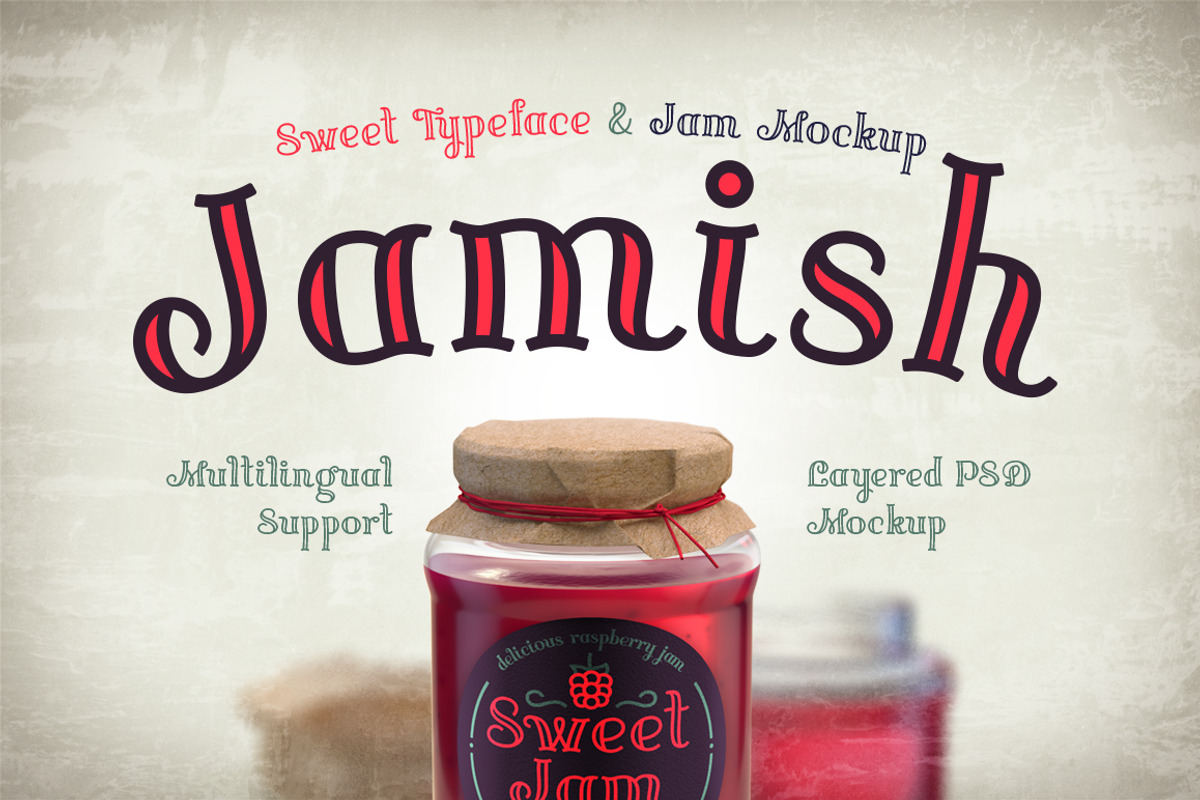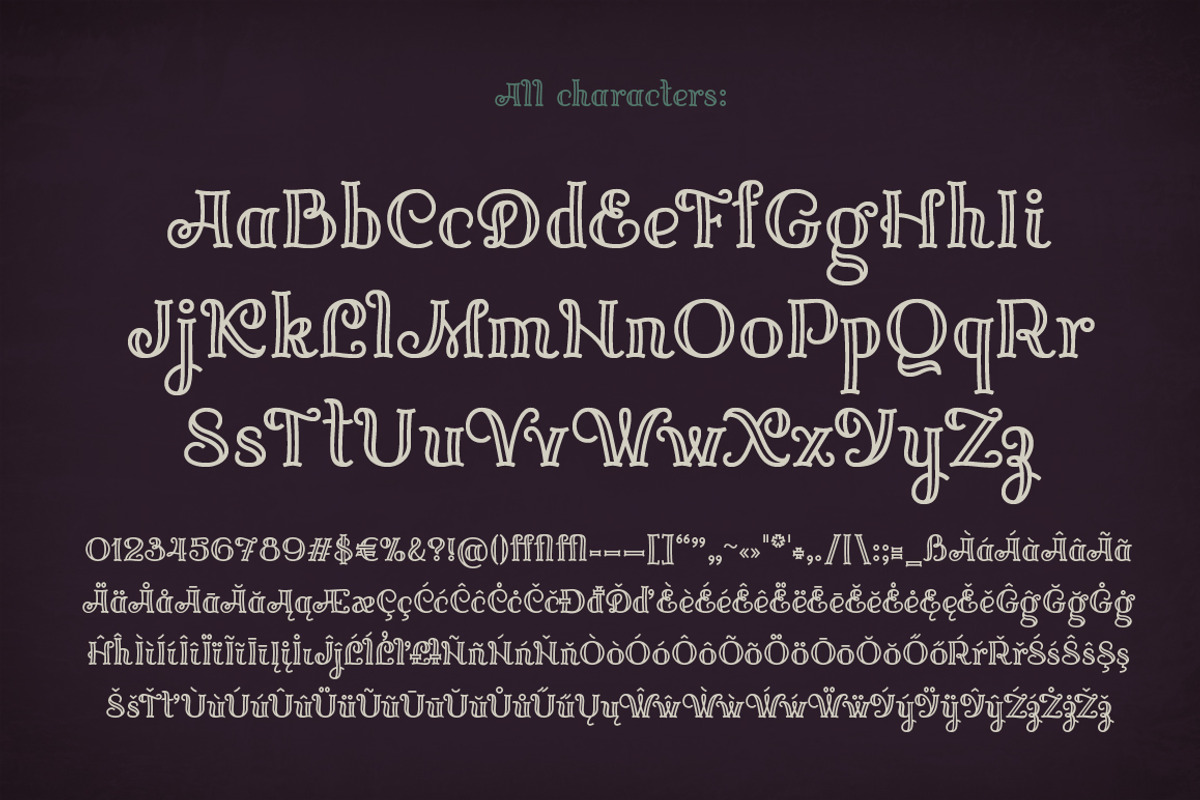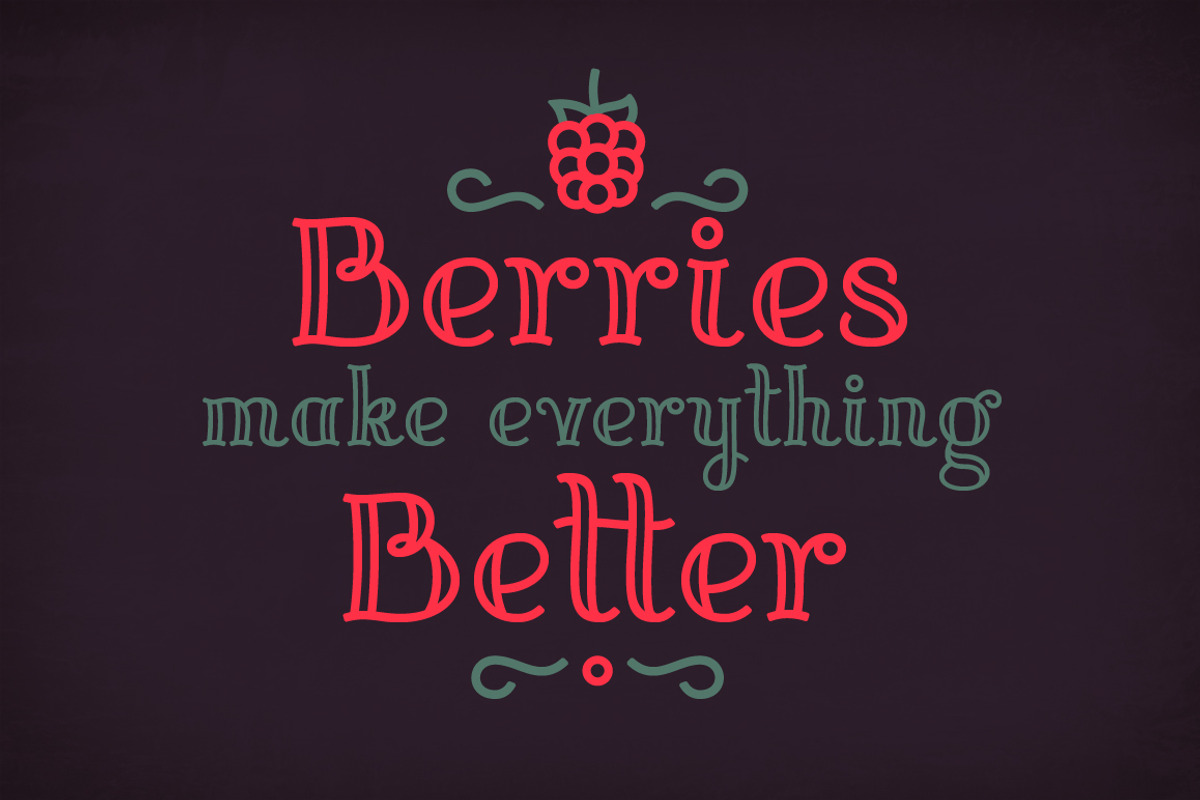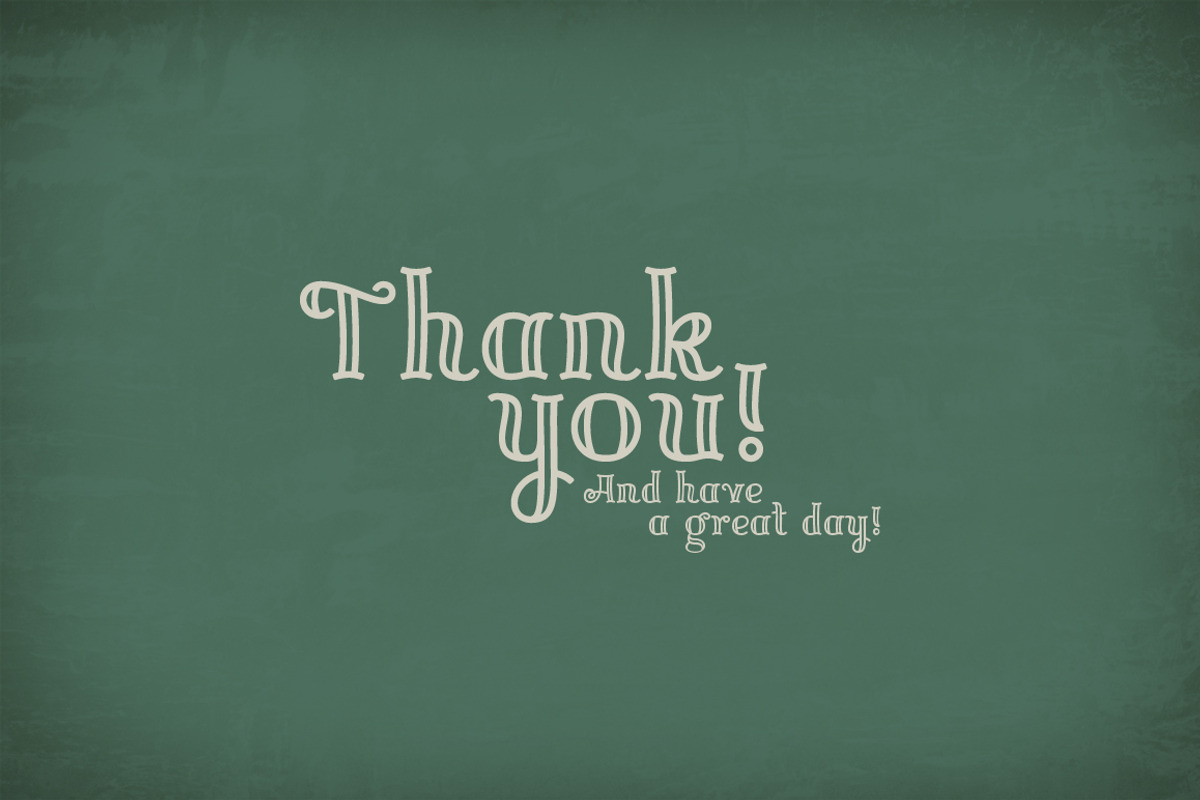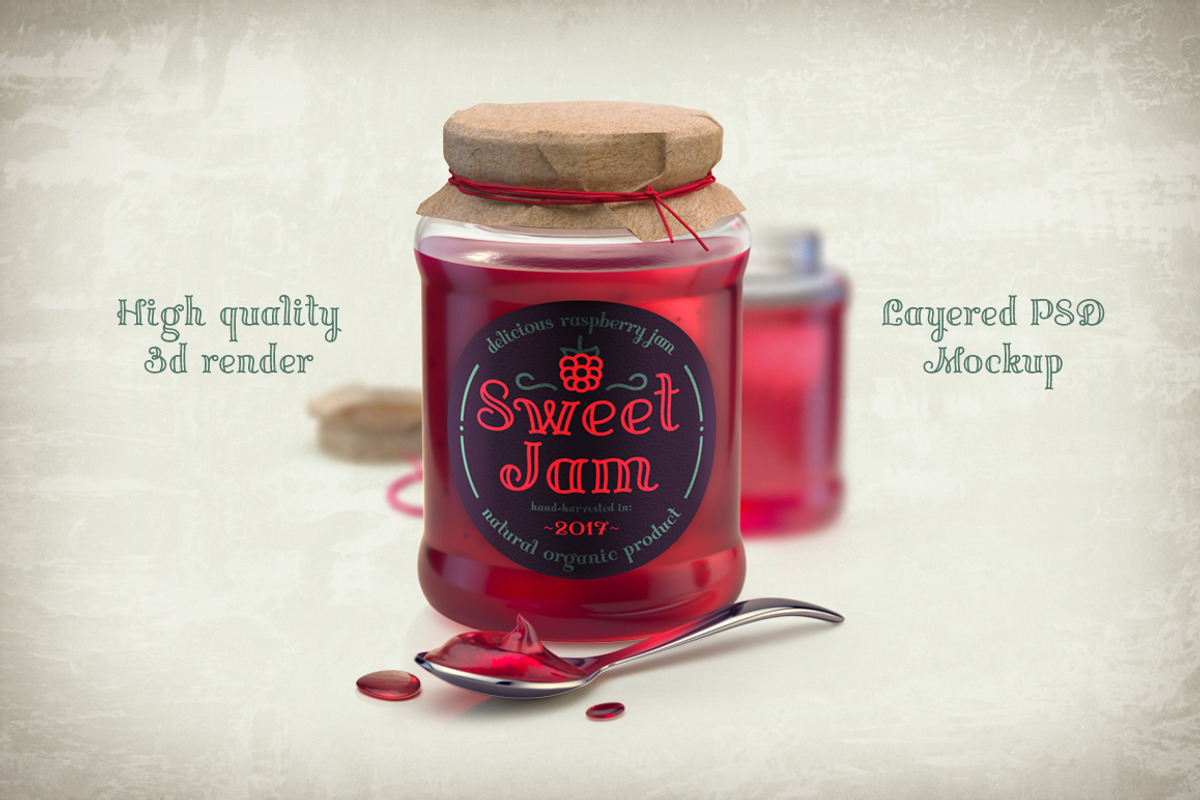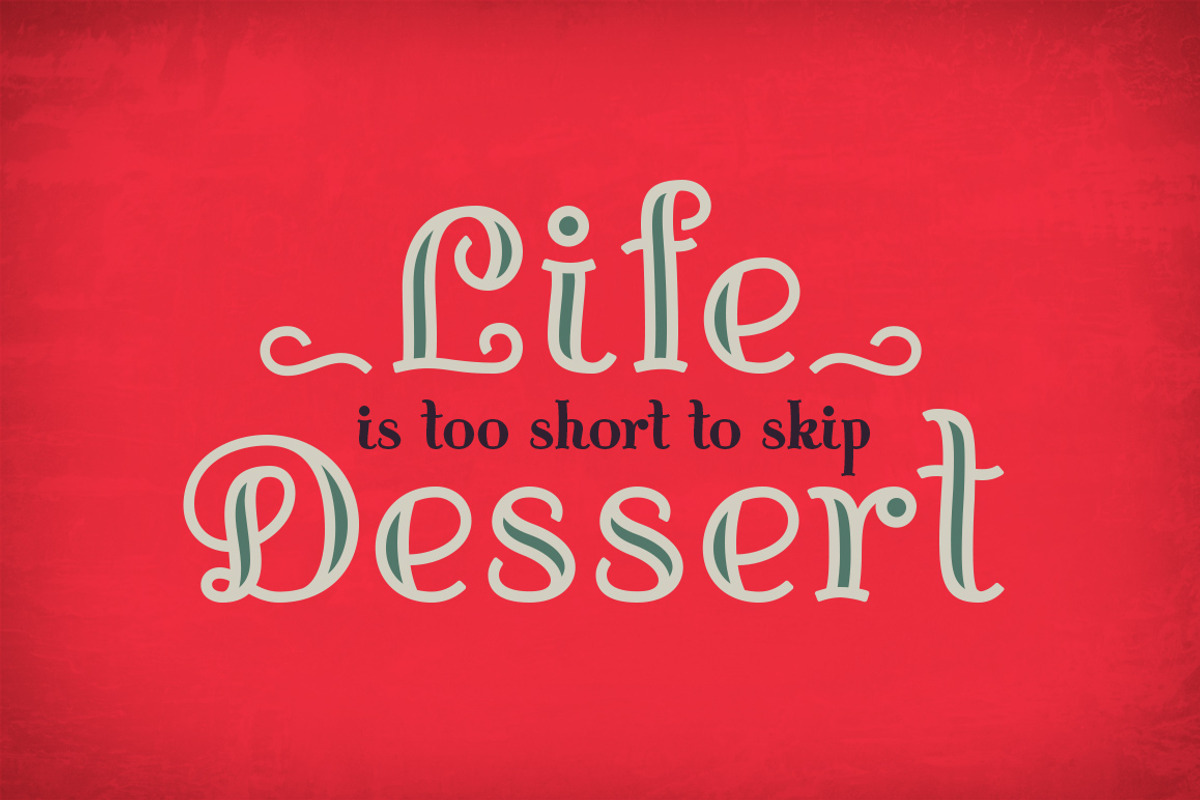
Jamish Font & Mockup
Jamish Font & Mockup by Gleb Guralnyk is a font selected for branding, posters, packaging, typography.
- This font has lots of characters including West European languages support and few ligatures.
- Jamish Regular
- Jamish Fill Regular
- Jamish Base Regular
Why Jamish Font & Mockup is worth a look
Jamish Font & Mockup by Gleb Guralnyk fits naturally into Branding, posters, packaging, typography.